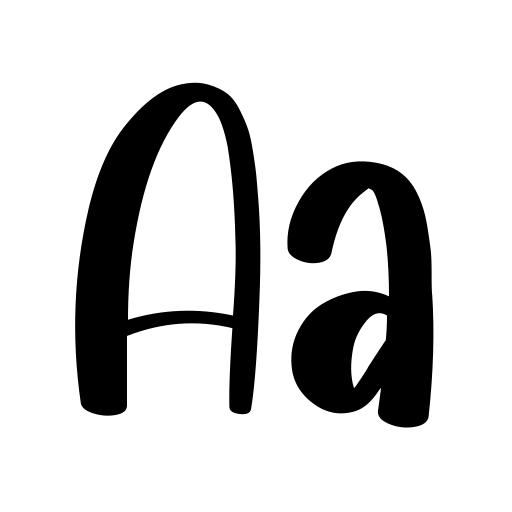
Atlanta Corner Demo is a playful, italic sans serif font with a lively, casual feel. Its slightly condensed letterforms and smooth, rounded strokes make it friendly and approachable, perfect for energetic headlines or branding that needs a dynamic yet informal touch. This font works well in creative projects, advertising, and packaging where a fun and modern vibe is desired.
Atlanta Corner Demo Font
About Atlanta Corner Demo Font
| Font family | Atlanta Corner Demo Font |
| Designer | Muhammad Lukman Fauzi & Suci Anita |